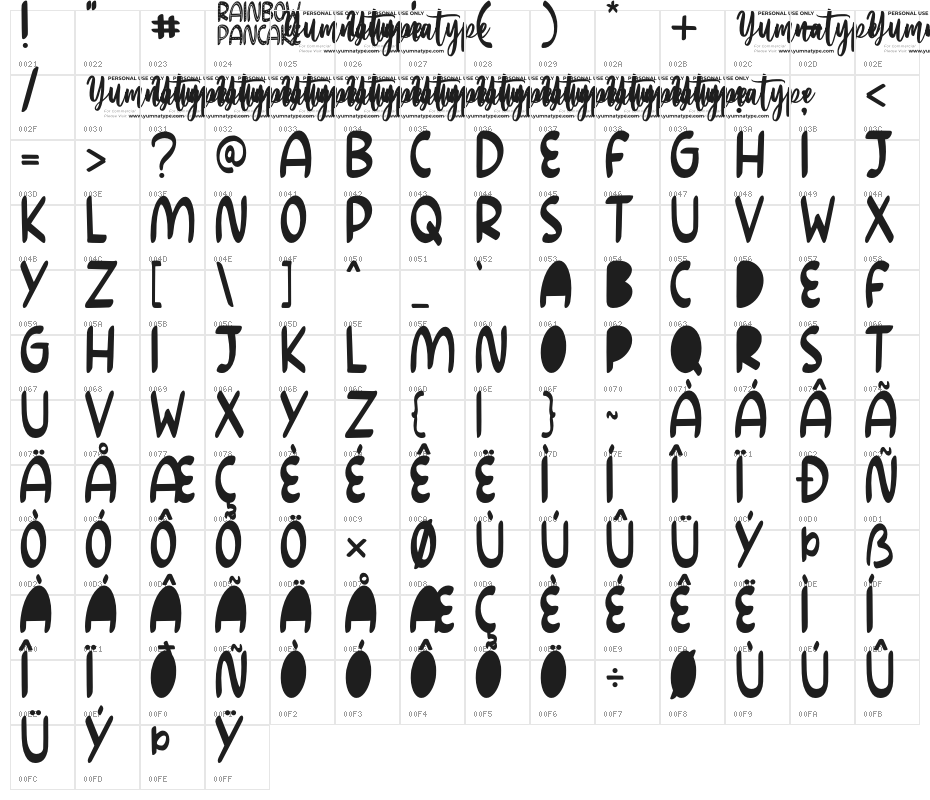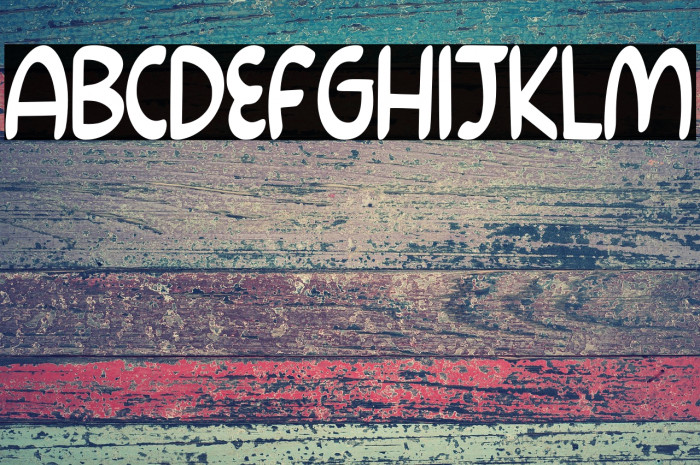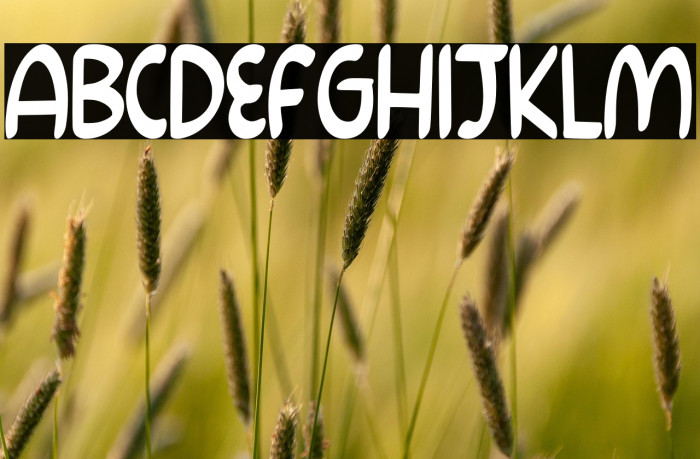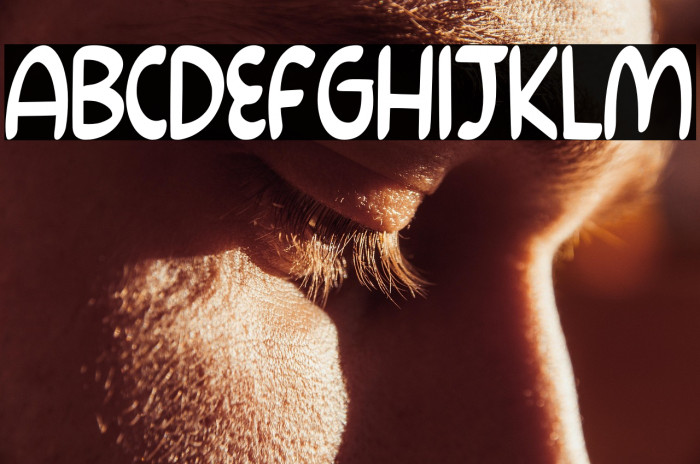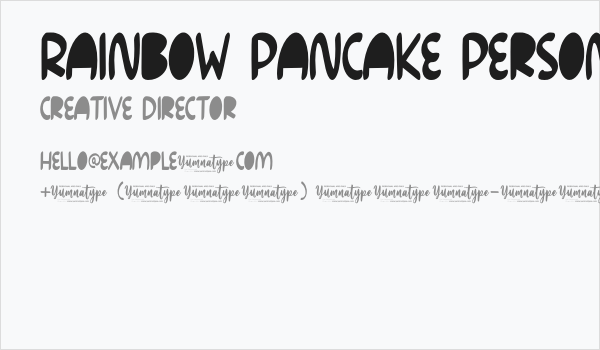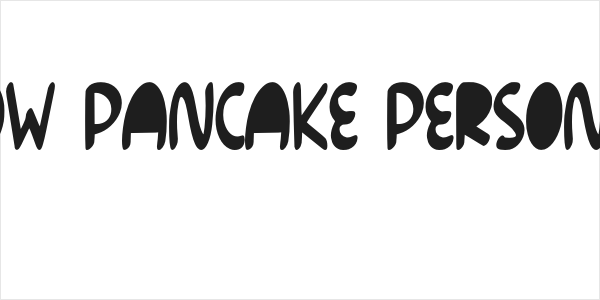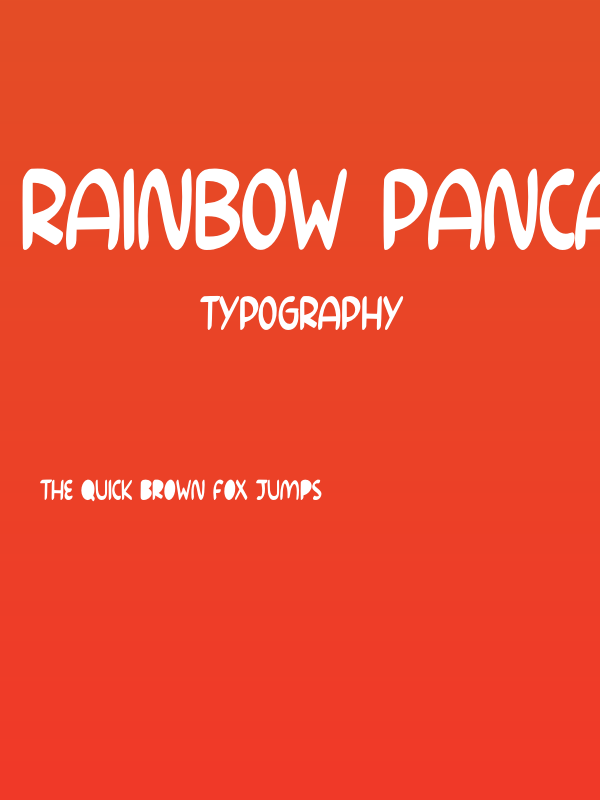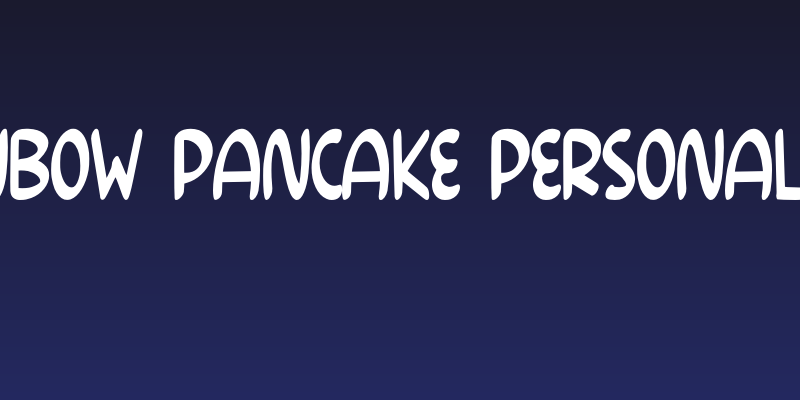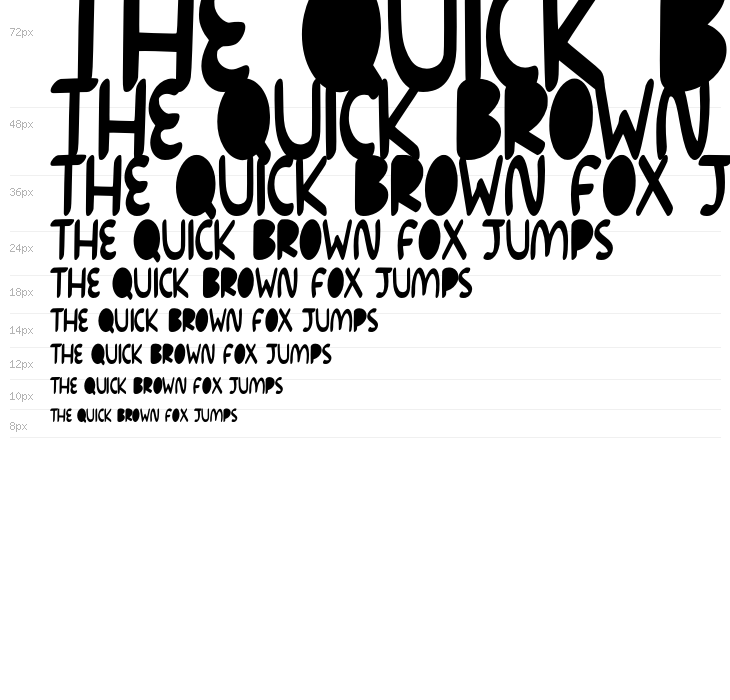
Rainbow Pancake Personal Use Font
Rainbow Pancake Personal Use Description
This playful and whimsical font features bold, rounded characters with a smooth, flowing style. The letters have a consistent thickness, giving them a friendly and approachable appearance. The uppercase and lowercase letters maintain a cohesive look, with slightly exaggerated curves and a unique flair that adds personality. The numbers and special characters are designed to match the overall aesthetic, making this font versatile for various creative projects. Its distinct style is perfect for capturing attention and conveying a sense of fun and creativity.